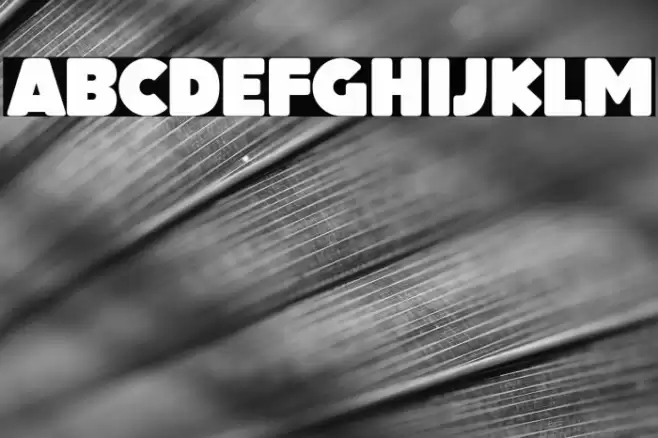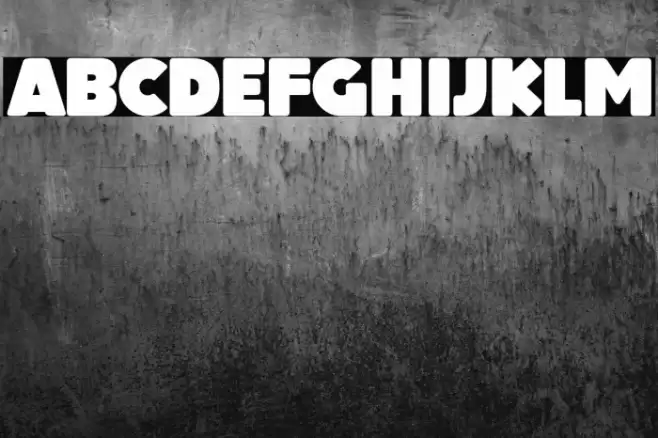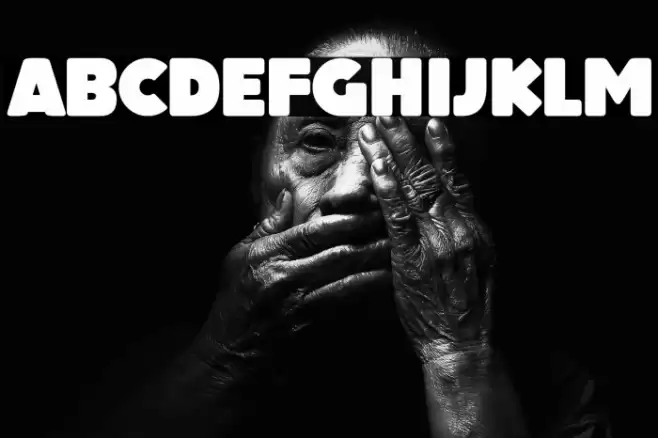
ToyBox Font
ToyBox Description
This font features bold, rounded characters with a playful and chunky appearance. The letters are uniformly thick, giving a strong and impactful look. The rounded edges and consistent stroke width contribute to a friendly and approachable style, making it ideal for designs that require a fun and engaging aesthetic. The numbers and special characters maintain the same bold and rounded characteristics, ensuring consistency across all glyphs.
A bold, rounded font with a playful and chunky style from Uncategorized fonts.
- Proposed Projects: Ideal for children's books, toy packaging, playful branding, and any project that requires a fun and engaging typeface.
- Overall Style: Playful